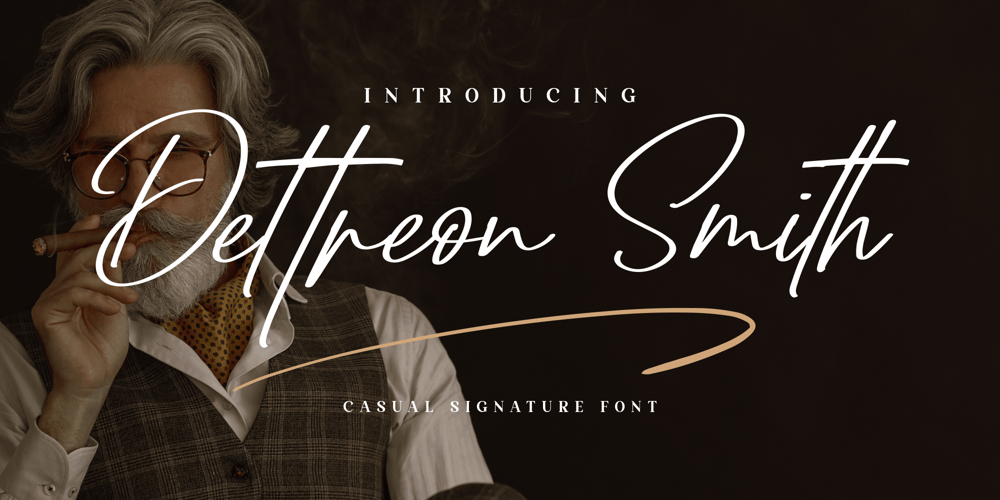
Dettreon Smith Font Family was designed by Heru Utama Putra and published by Letterena Studios. Dettreon Smith contains 2 styles and family package options. Looking for the perfect font to use on invitations or branding? Hoping to travel your audience to a world of gorgeous, elegant, versatile, yet modern? Then, you go to the right path.Introducing Dettreon Smith – A Signature FontDettreon Smith is a modern and elegant handcrafted signature font to embrace your audiences or guests. Every stroke and curve was created to capture the essence of elegance and style. Perfect for social media posts and ads, printed quotes, t-shirt designs, packaging, or even as a modern text overlay to any background image.Dettreon Smith includes Multilingual Options to make your branding globally acceptable.Features: Ligatures Swash Multilingual Support PUA Encoded Numerals and Punctuation